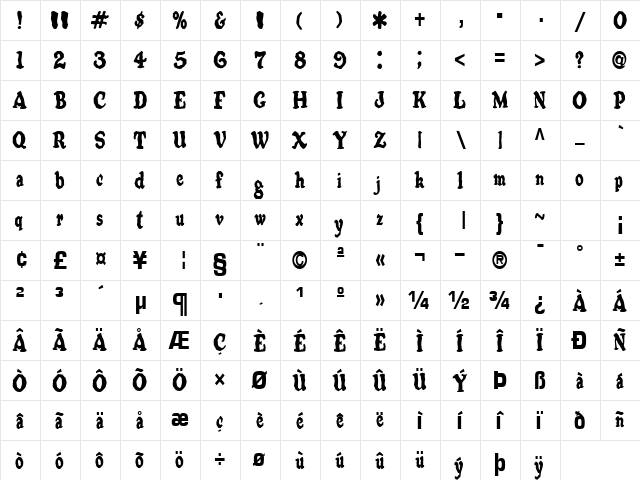
FoolHartOld27 Regular
Design Context for FoolHartOld27 Typeface
FoolHartOld27 takes a measured approach to typography — its balanced proportions and neutral character make it a reliable workhorse for both digital and print work.